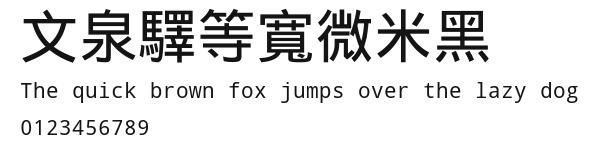
• Font Name: 文泉驛等寬微米黑
• Font ID: WenQuanYi - Micro Hei
• Full Font Name: 文泉驛等寬微米黑
• Version: Version 0.2.0-beta
• PostScript Name: WenQuanYiMicroHeiMono
• Character Count: 34599
• Description: WenQuanYi Micro Hei is a humanist sans serif typeface designed for user interfaces and electronic communication.
About 文泉驛等寬微米黑.ttf
文泉驛等寬微米黑.ttf is a modern, elegant sans-serif font designed for ultimate readability and visual harmony. Perfect for branding, headlines, web design, and print materials.